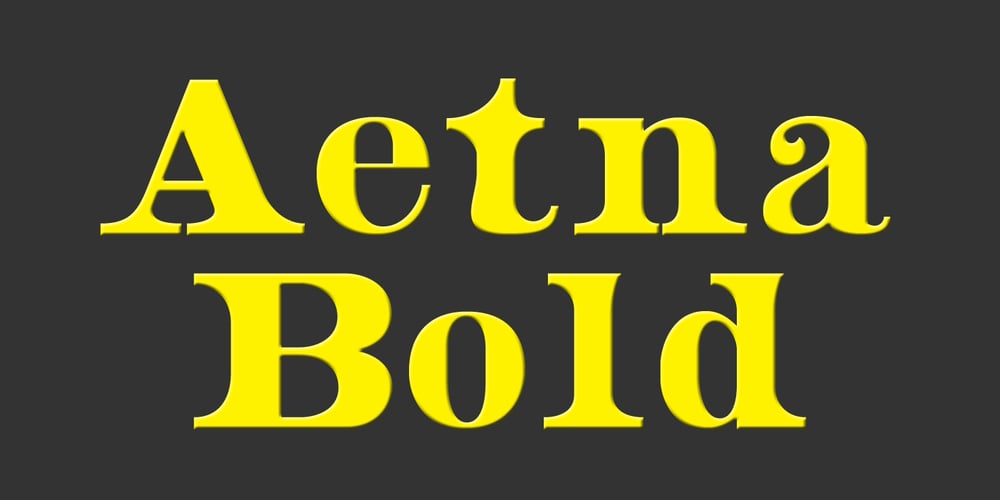
Aetna Font Family was designed by William Hamilton Page, Jordan Davies and published by Wooden Type Fonts. Aetna contains 1 styles and family package options. A revival of one of the popular wooden type fonts of the 19th century. Suitable for text or display, Aetna has thick stems and serifs, related to Roman and Doric, short descenders, tall x height.